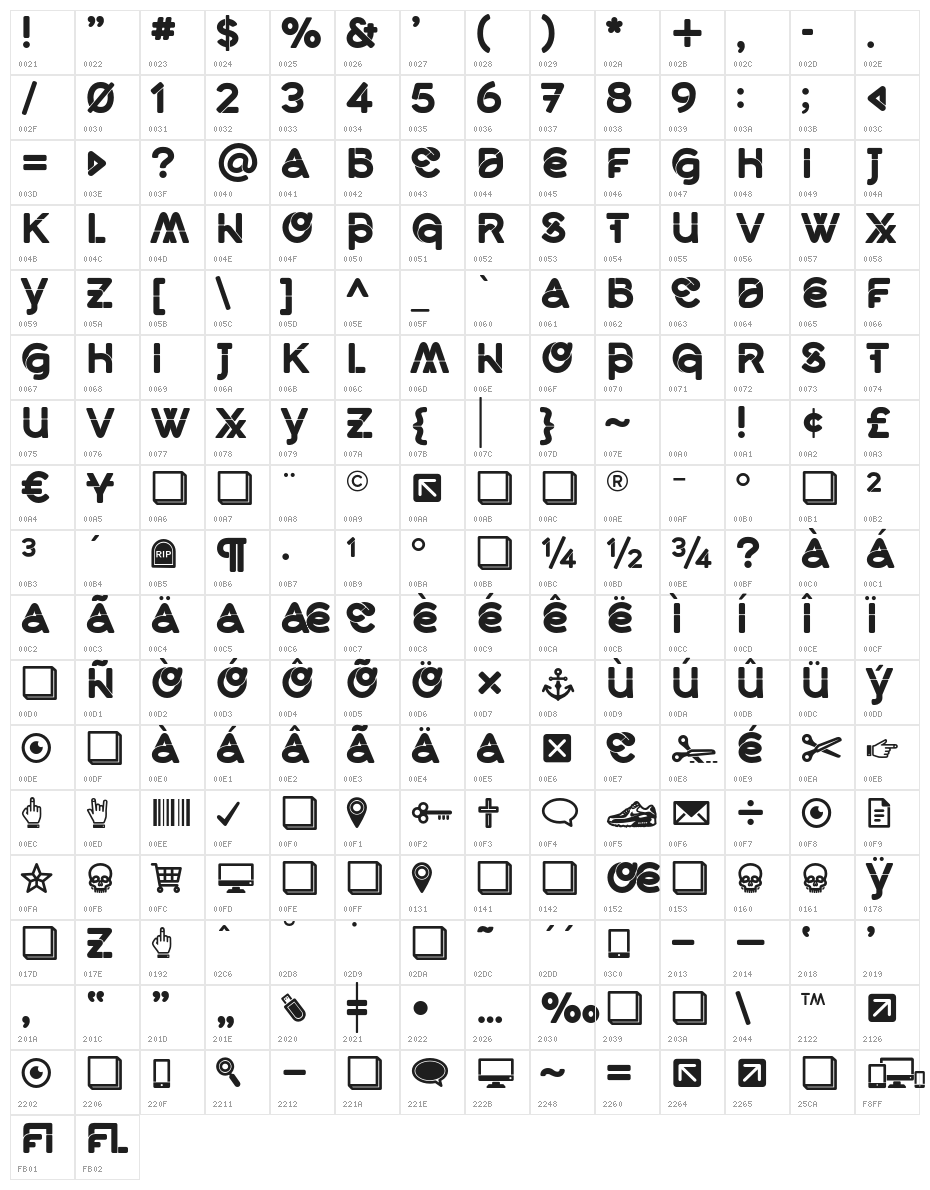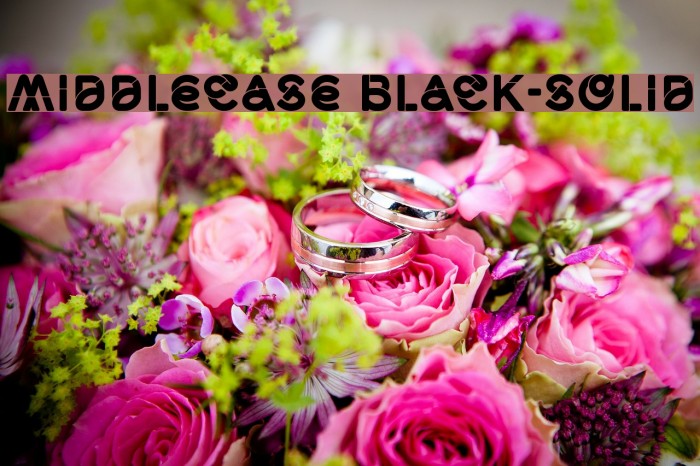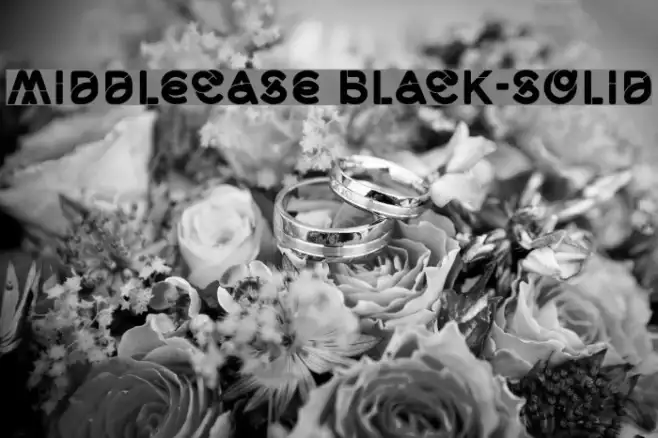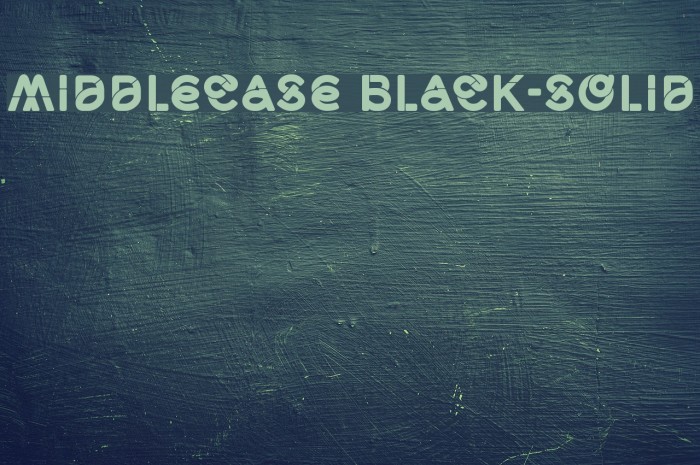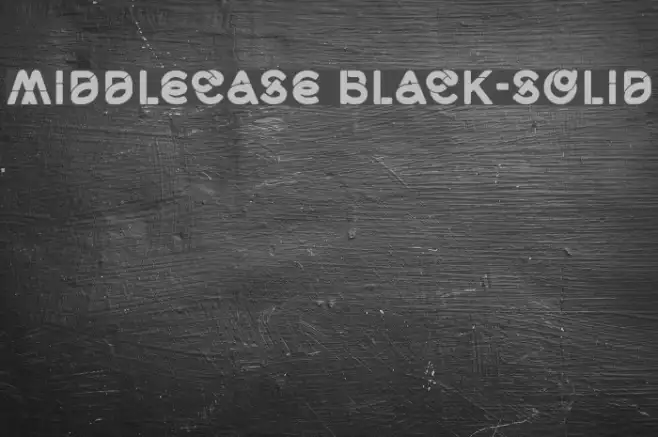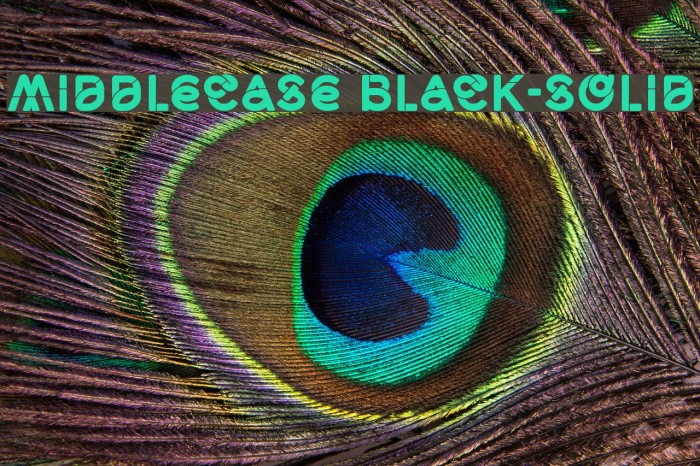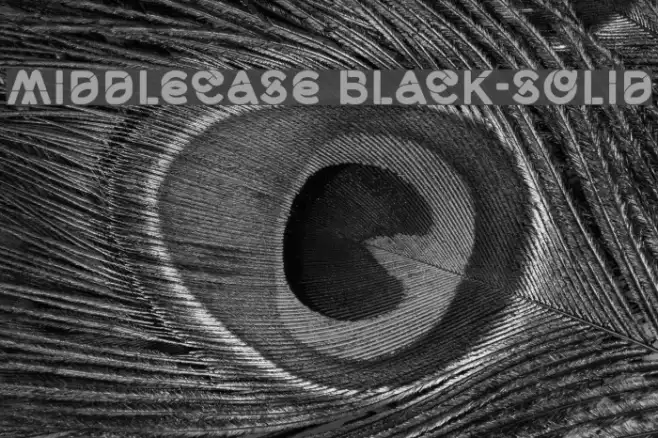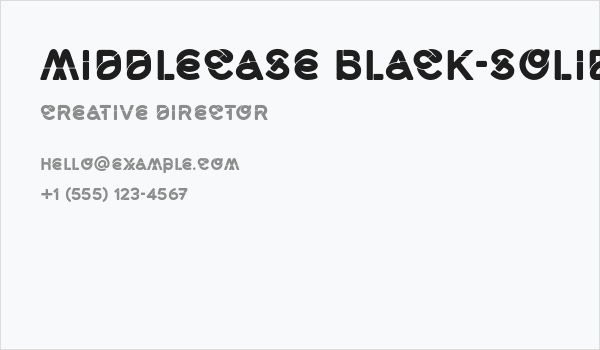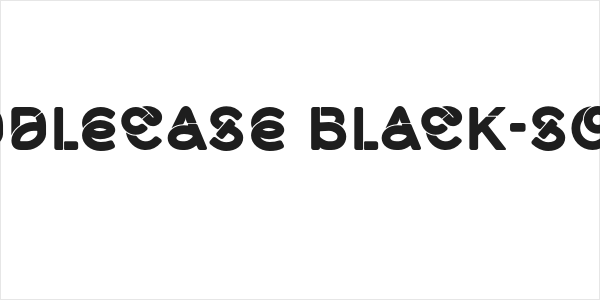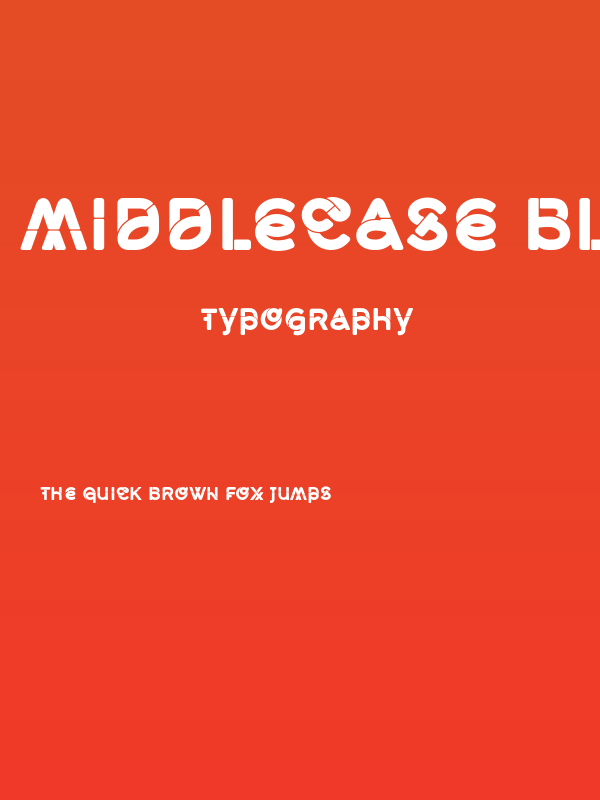
Middlecase Black-Solid Font
Middlecase Black-Solid Description
This font features bold, geometric shapes with a solid, heavy appearance. The characters are designed with a modern and futuristic aesthetic, incorporating unique cutouts and angles that give it a distinctive look. The uppercase and lowercase letters maintain a consistent weight, contributing to a cohesive visual style. The numerals and special characters follow the same design principles, ensuring uniformity across all glyphs. The font's boldness and unique style make it stand out, making it suitable for attention-grabbing designs.
| Proposed Projects | Ideal for branding, posters, headlines, and any project requiring a strong visual impact. |